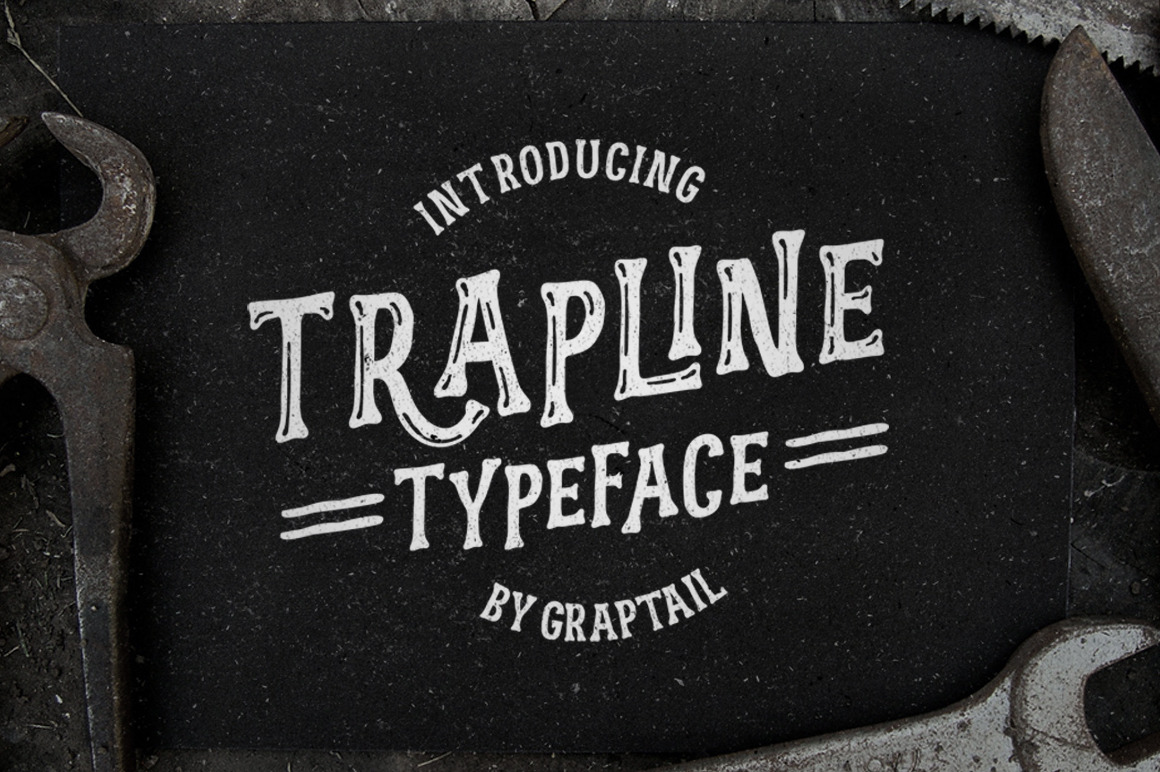
Trapline Typeface
Trapline Typeface font display is made by hand, inspired by classic posters. With a combination of highly vintage feels and the OpenType features put together on it, you can Easily create an attractive harmonic message for your design. Trapline Typeface comes with 4 variations of each variation combined with uppercase and lowercase letters.
This font is suitable for greeting cards, posters, labels, t-shirt design, etc.